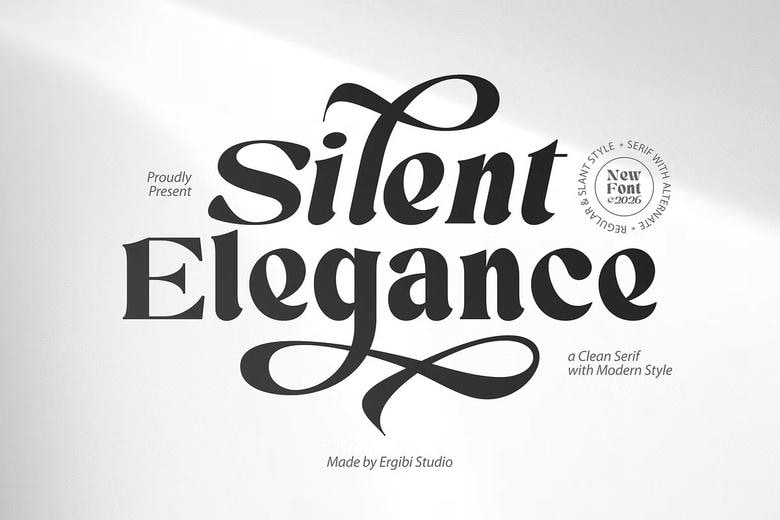
Silent Elegant Font
Silent Elegance is a contemporary serif typeface designed with a sense of silent luxury and elegance to add to your designs. It is a combination of traditional serif design and gentle modernism, which introduces an impression of old-time yet new appearance. Silent Elegance will be flexible – it can be minimal and clean in one design, but can be expressive and stylish in another, depending on your application of it.
The font has a organic flow thanks to well designed letterforms, proportions, and elegant alternate characters, which make it ideal to use in logos, branding, editorials, fashion images, packaging, and any other project that requires a sophisticated look, yet not to be overly formal.
Silent Elegant Serif Font